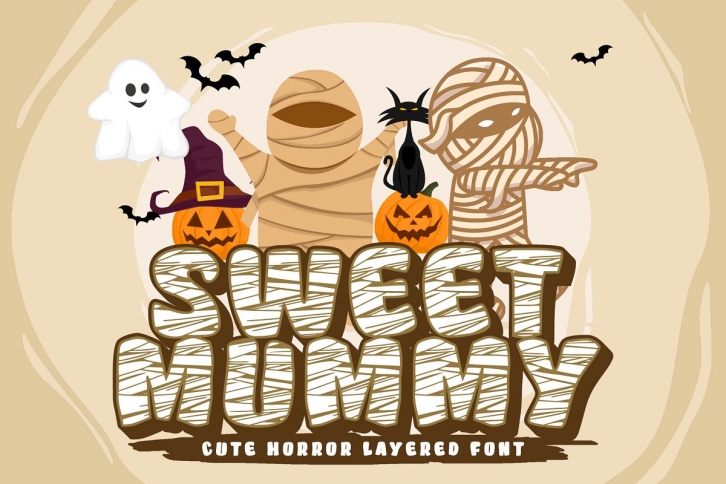
Sweet Mummy is horror-themed font. This font is horror but cute, inspired by mummy.
Perfect for any horror project like halloween party, halloween poster, horror logo, and many others.